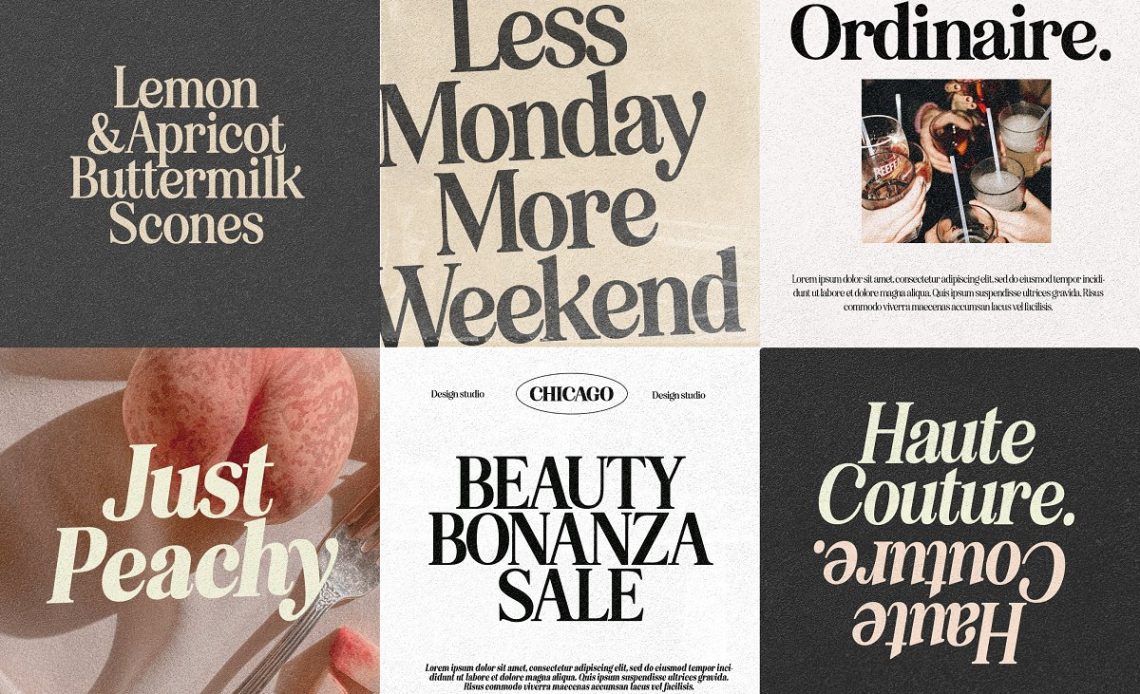
Welcome to the stunning world of Eighties Comeback Serif, a font family created by the talented Nicky Laatz. This amazing typeface brings back the 80's retro-inspired vibe that is perfect for your creative projects. With 70 fonts to choose from, Eighties Comeback Serif is your go-to font family to give your designs a charming, flirtatious, and retro touch.
Inspired by magazine adverts from the 70's and 80's, Eighties Comeback Serif adds a touch of nostalgia to your modern designs, making them stand out. The font family is super-versatile, allowing you to explore endless possibilities. You can go through the previews to see the wide range of variety that Eighties Comeback Serif can manifest.
Designing with Eighties Comeback Serif is so much fun, and it gets even better with the 2 Handy Variable TTF files included for those who have Adobe Photoshop/Illustrator CC 2020 and up. Adjust your letterspacing to add more groove, go for tighter letterspacing for large headers, and a looser spacing for small body text to give your designs a unique and distinctive look.
The font family includes 70 fonts, ranging from light to black in weight, and ultra-condensed to regular in width. It comes with no special software requirements, meaning you can use them in Canva and other design software.
In conclusion, Eighties Comeback Serif is the perfect font family for anyone who wants to add a retro touch to their designs. With its charming, flirtatious, and versatile vibe, you can explore endless possibilities to create eye-catching designs. Don't miss out on this opportunity to create something truly unique and captivating.